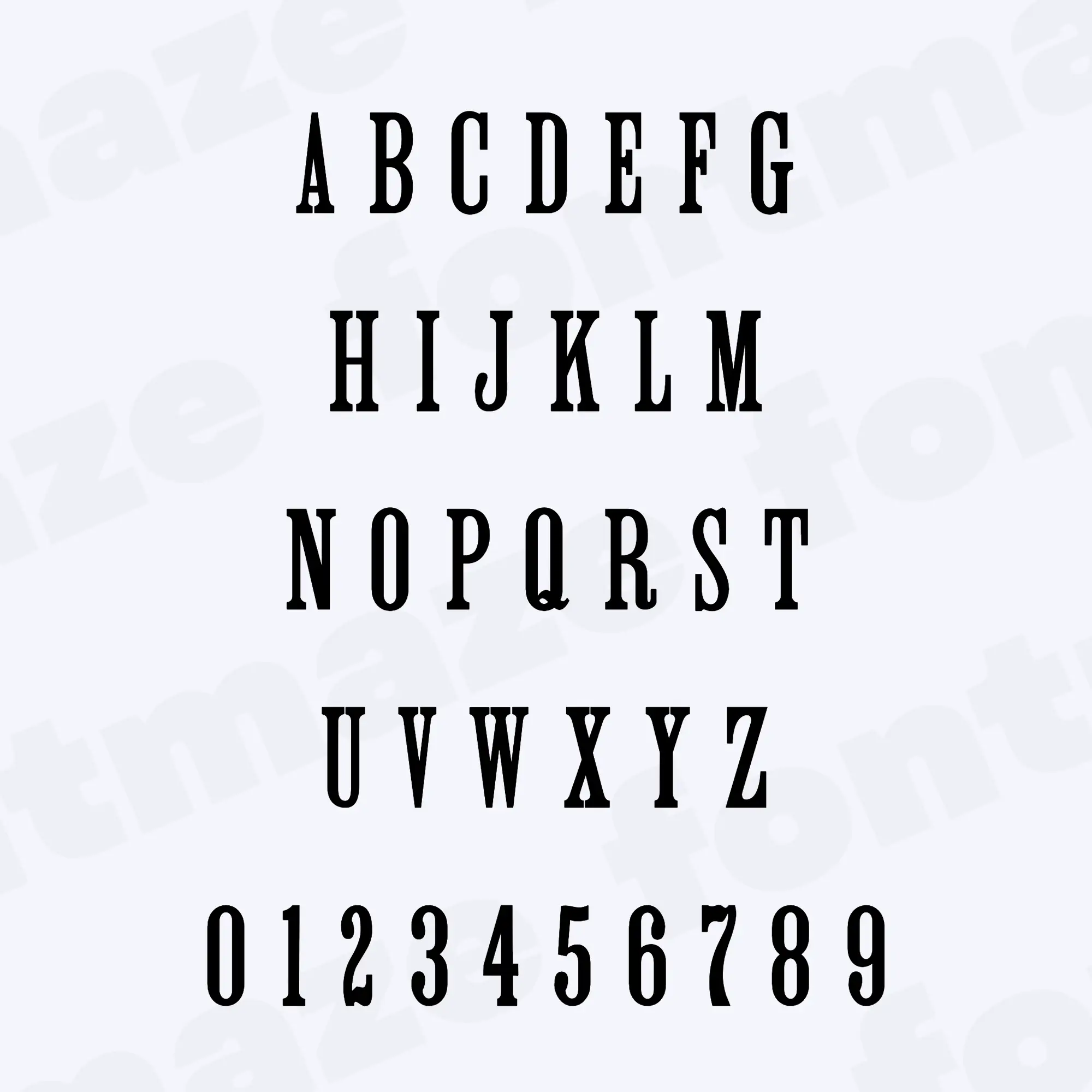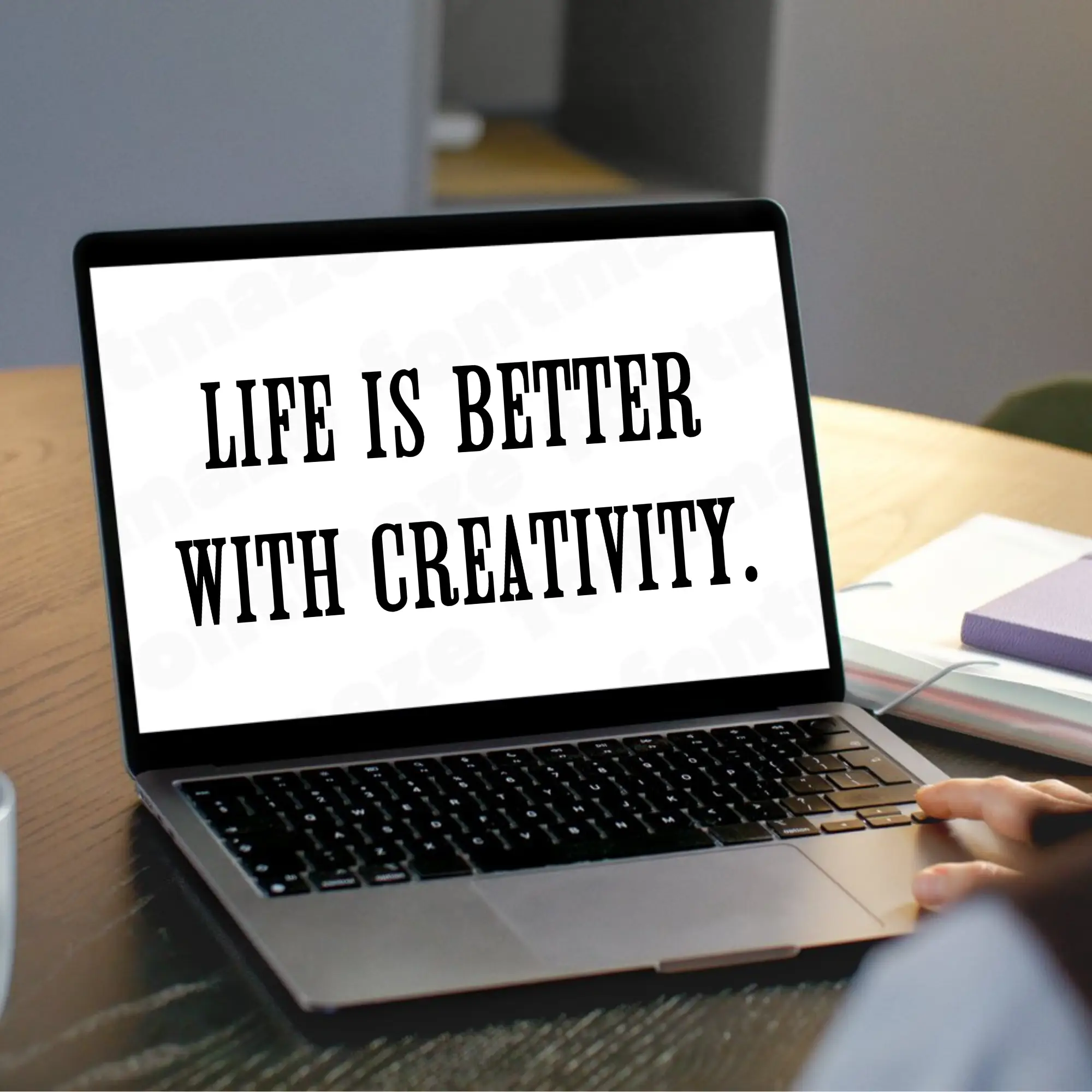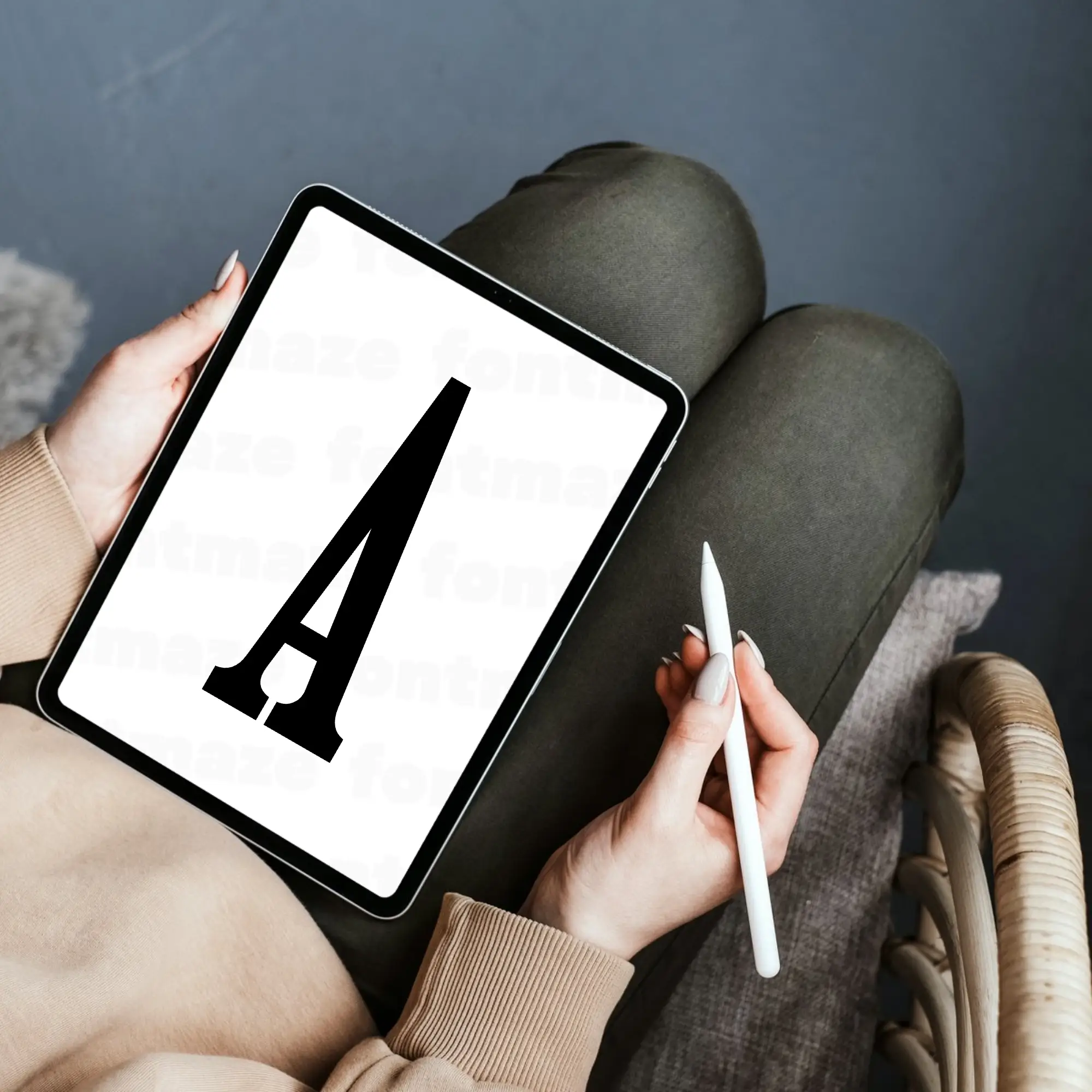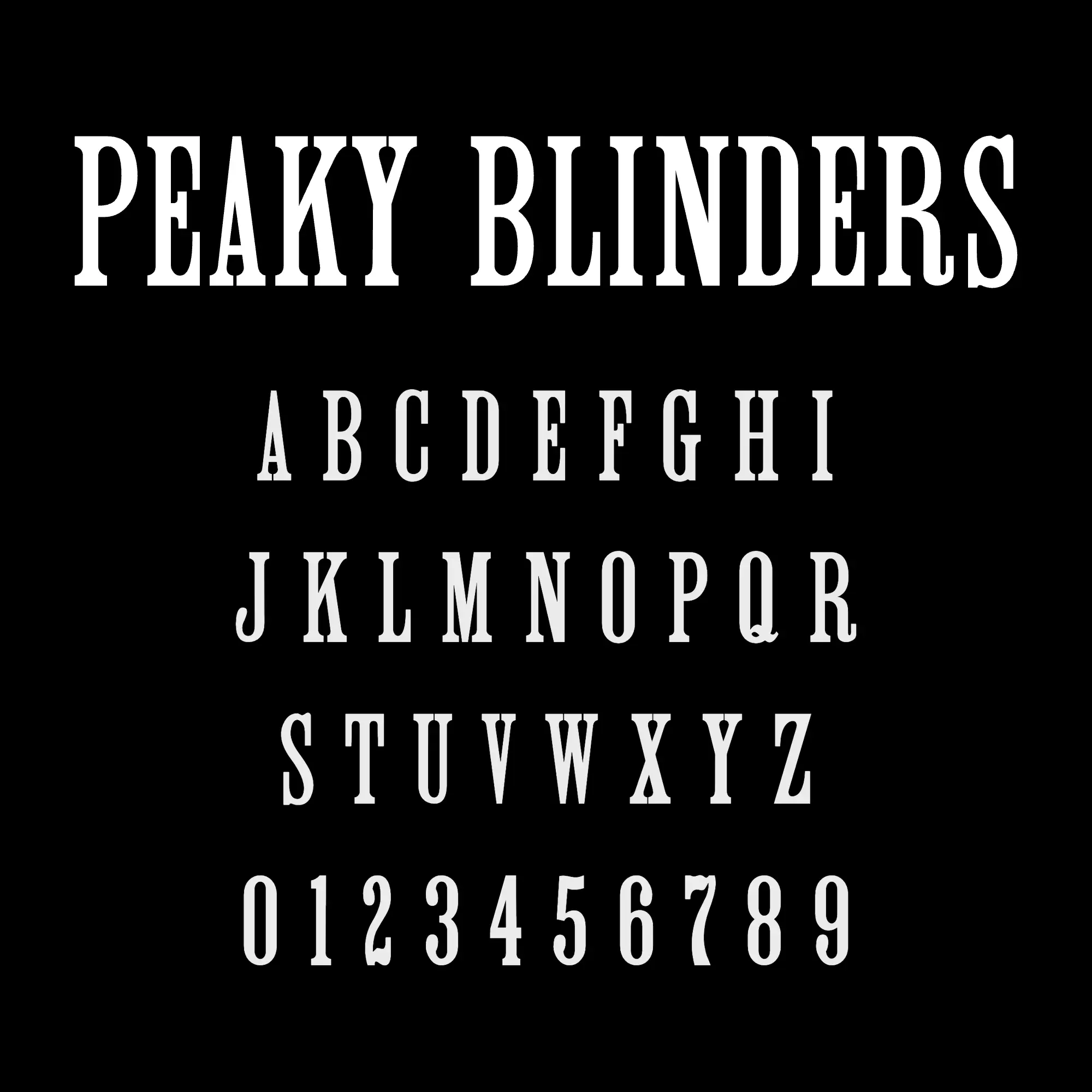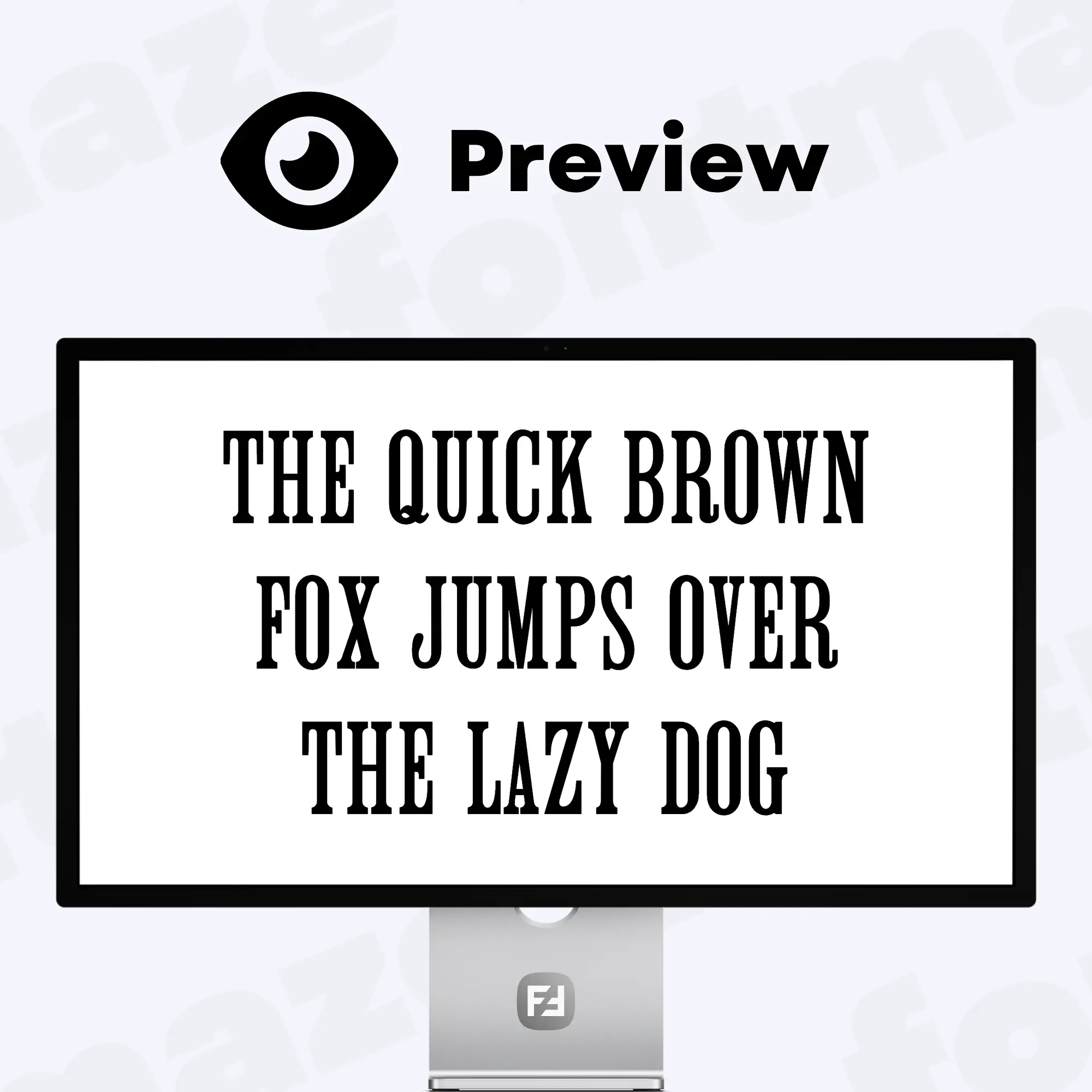
Our Peaky Blinders Font, a Gangster Style Typeface
Make your next project stand out with our Peaky Blinders font – a flexible and stylish typeface made for everyone.
Handcrafted in our studio with care and attention to detail, the Peaky Blinders font brings a unique, personal touch to your designs.
Start designing instantly with the Peaky Blinders font, perfect for social media graphics, printable crafts, digital downloads, and creative projects of all kinds.